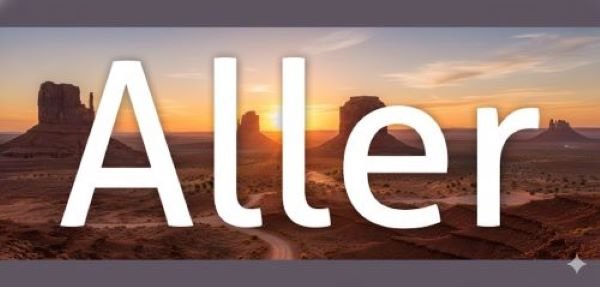
Aller font is a friendly modern sans-serif typeface by Dalton Maag Ltd, designed for excellent readability and versatility — with rounded shapes, a clean structure, and a wide range of weights that work beautifully for web design, branding, posters, and interfaces, delivering a warm and approachable feel while remaining professional. Free for personal use.
Designer: Dalton Maag Ltd
Style: Sans Serif Font, Rounded Font